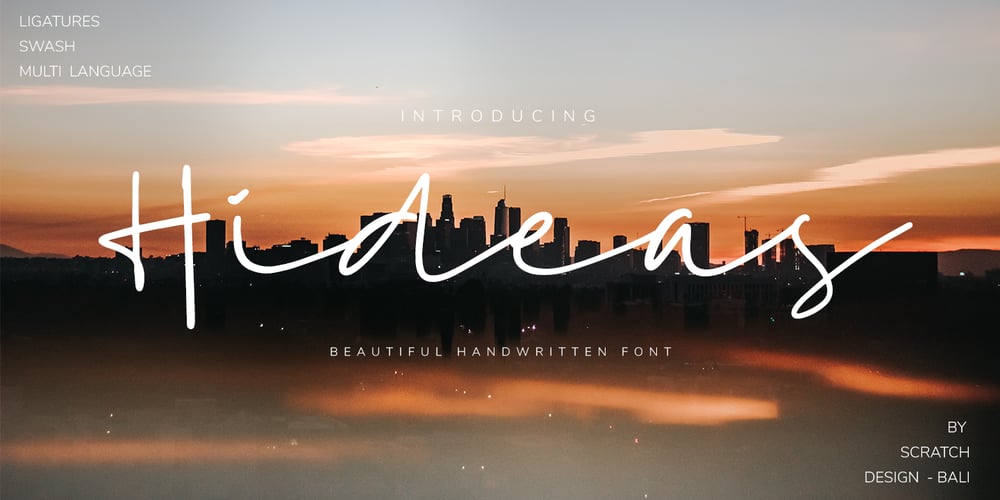
Hideas Font Family was designed by Gitayogi Irhandi and published by Scratch Design. Hideas contains 1 styles and family package options. Introducing our new font “Hideas”, a gorgeous hand brushed font and modern script that is made to create stunning logos, quotes, wedding invites, blog posts, Instagram, signatures, poster, postcard, and more! This font includes ligatures and swashes to make everything look perfectly natural, handwritten, smooth and dynamic. Hideas also contains Numbers and Punctuation and International language support.